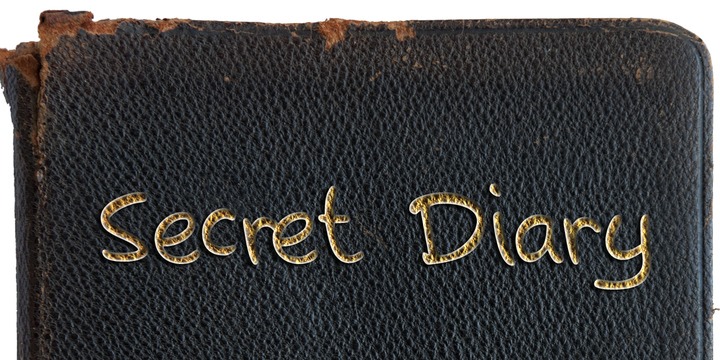
Secret Diary Font
This intimate typeface is perfect for personal journal designs, handwritten-style branding, memoir book covers, creative writing materials, artisan stationery collections, heartfelt greeting cards, authentic blog headers, and nostalgic scrapbooking projects. Secret Diary Font delivers genuine personal touch in applications where handwritten authenticity and intimate storytelling are essential for creating meaningful emotional connections with audiences seeking genuine human expression.
What makes Secret Diary Font so exciting is its authentic capture of personal handwriting with all its natural charm and imperfections. The font features organically flowing letterforms with subtle variations that mirror real pen-and-paper writing experiences. Each character demonstrates careful attention to maintaining the spontaneous quality of personal journaling while ensuring excellent readability across various applications. The typeface's intimate personality creates immediate emotional warmth and trust, making it perfect for brands and projects that want to communicate authenticity, personal stories, and genuine human connection through their visual identity.
The Secret Diary Font includes essential style variations: Regular, Bold, Thin, and Cursive versions. This personal collection provides designers with versatile tools to create intimate layouts and establish authentic typographic treatments that feel genuinely handcrafted. Each style maintains the font's inherent warmth while offering different personality levels for various personal applications and heartfelt design themes.
Whether you're developing personal brand identities, creating memoir publishing materials, or designing authentic storytelling campaigns, Secret Diary Font Free Download offers the genuine character that connects with audiences seeking authentic human experiences. Its intimate appeal makes it particularly suitable for creative writers, personal coaches, artisan brands, and lifestyle businesses focused on personal growth. The font's trustworthy nature ensures emotional engagement in both digital and print applications, while its versatile design adapts beautifully to vintage, contemporary, and rustic aesthetic approaches.
This authentic handwritten typeface represents the perfect solution for designers who appreciate the enduring power of personal storytelling in meaningful brand communication.